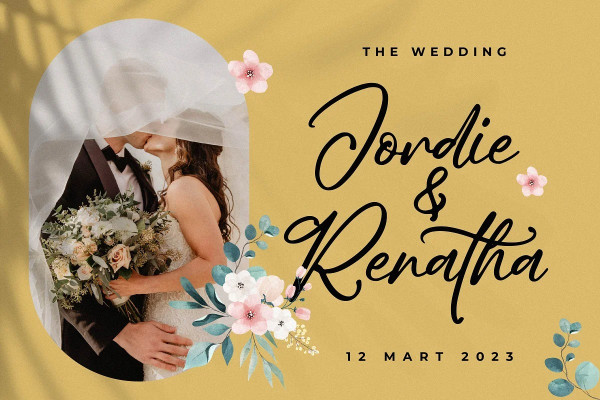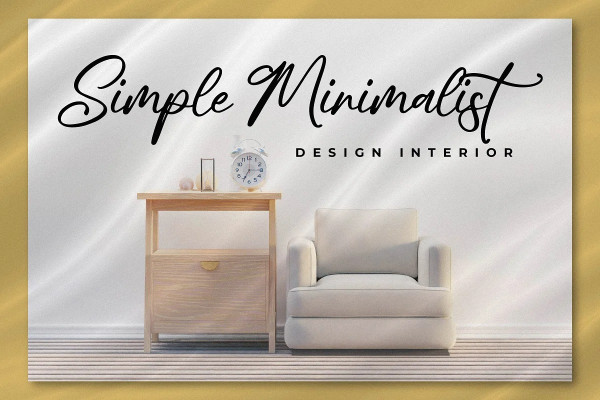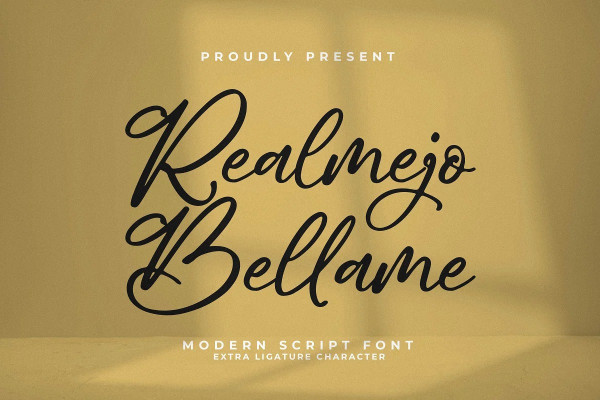
Realmejo Bellame Font
Realmejo Bellame Font – Modern Script Font, from Integritype Studio, is a premium Modern Script Font, perfect for any project like: logos, branding projects, homewares designs, product packaging, mugs, quotes, posters, shopping bags, t-shirts, covers books, business cards, invitation cards, greeting cards, labels, photography, watermarks, special events and all your other luxury projects that require a premium taste.